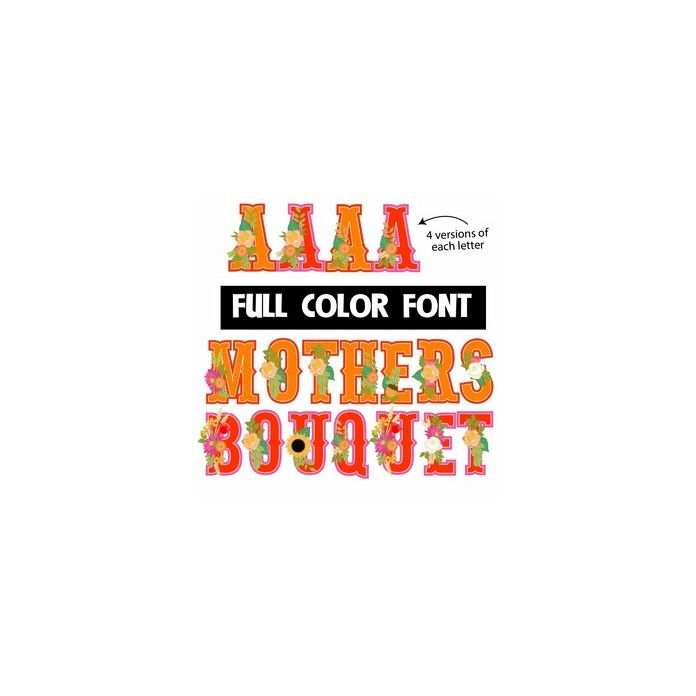
This full-color font features pretty flowers throughout on orange colored lettering. There is a red alt-case available through Silhouette's glyph map.